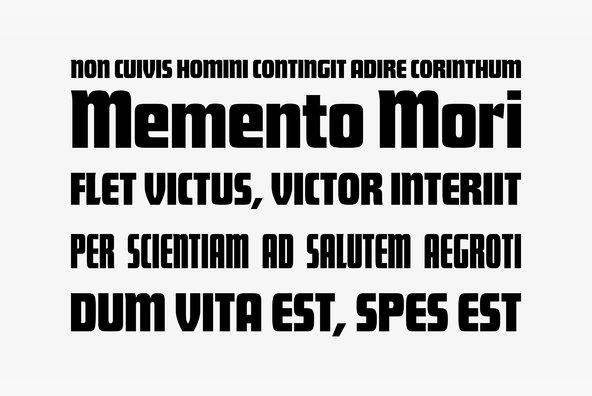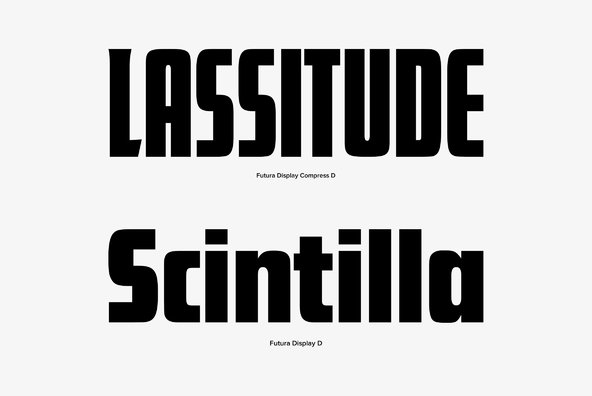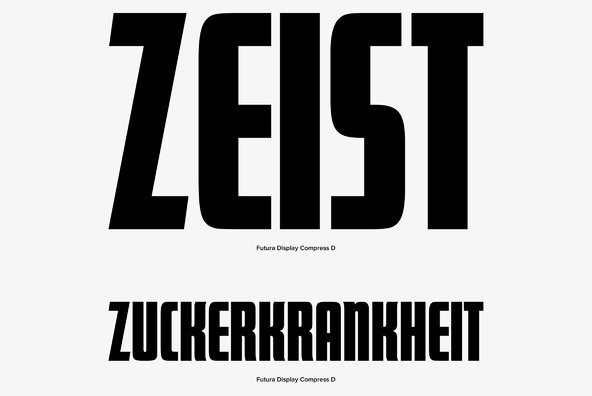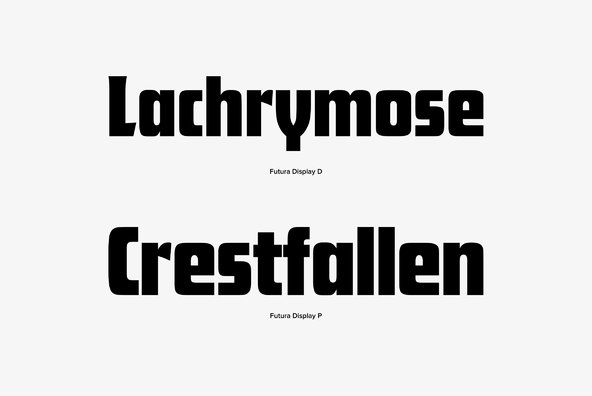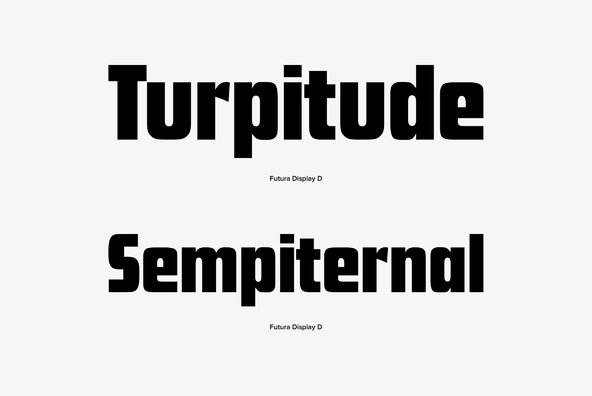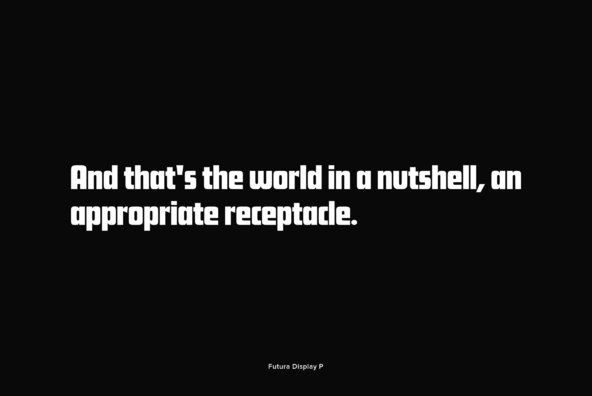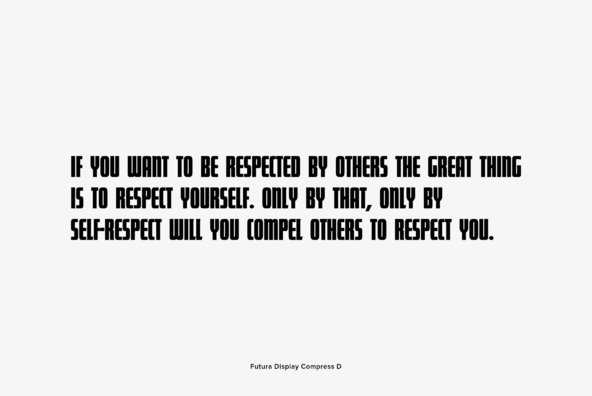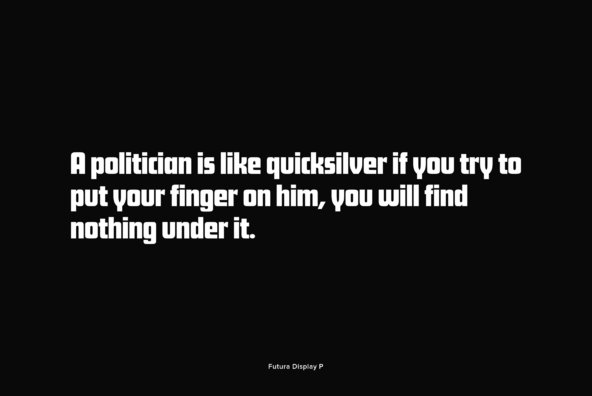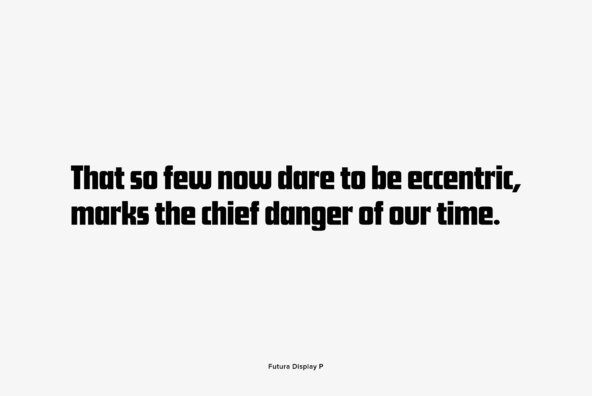
Futura Display
Released in 1932, Futura Display (Futura Schlagzeile) uses more angular strokes than the traditional design, resulting in rectangular letter forms. Designed by Paul Renner.